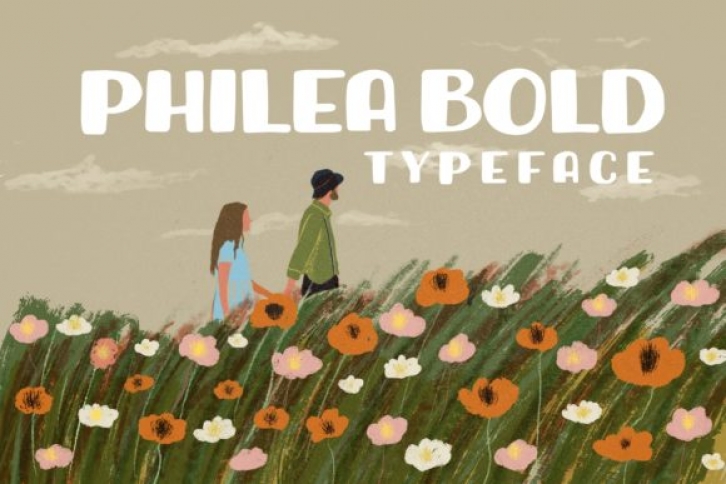
Philea Bold is a fun, cartoon like display font. No matter the topic, this font will be an incredibly asset to your fonts’ library, as it has the potential to elevate any creation.